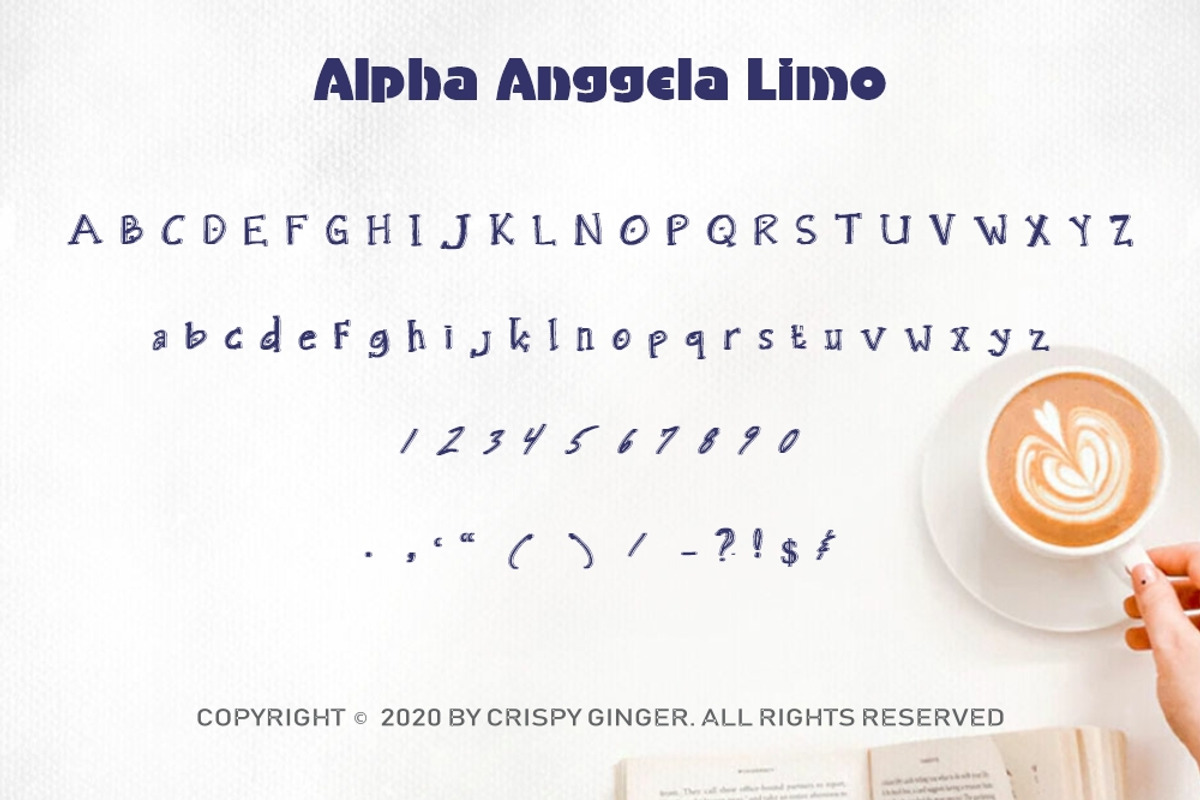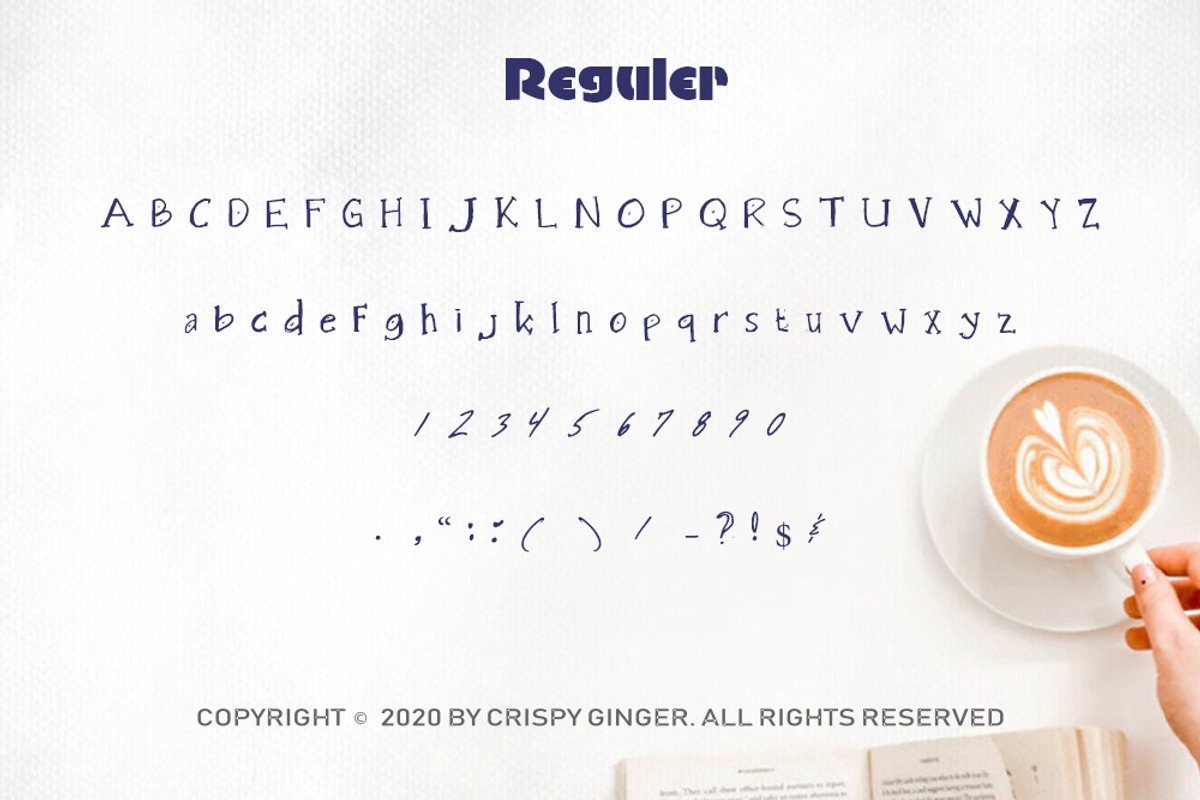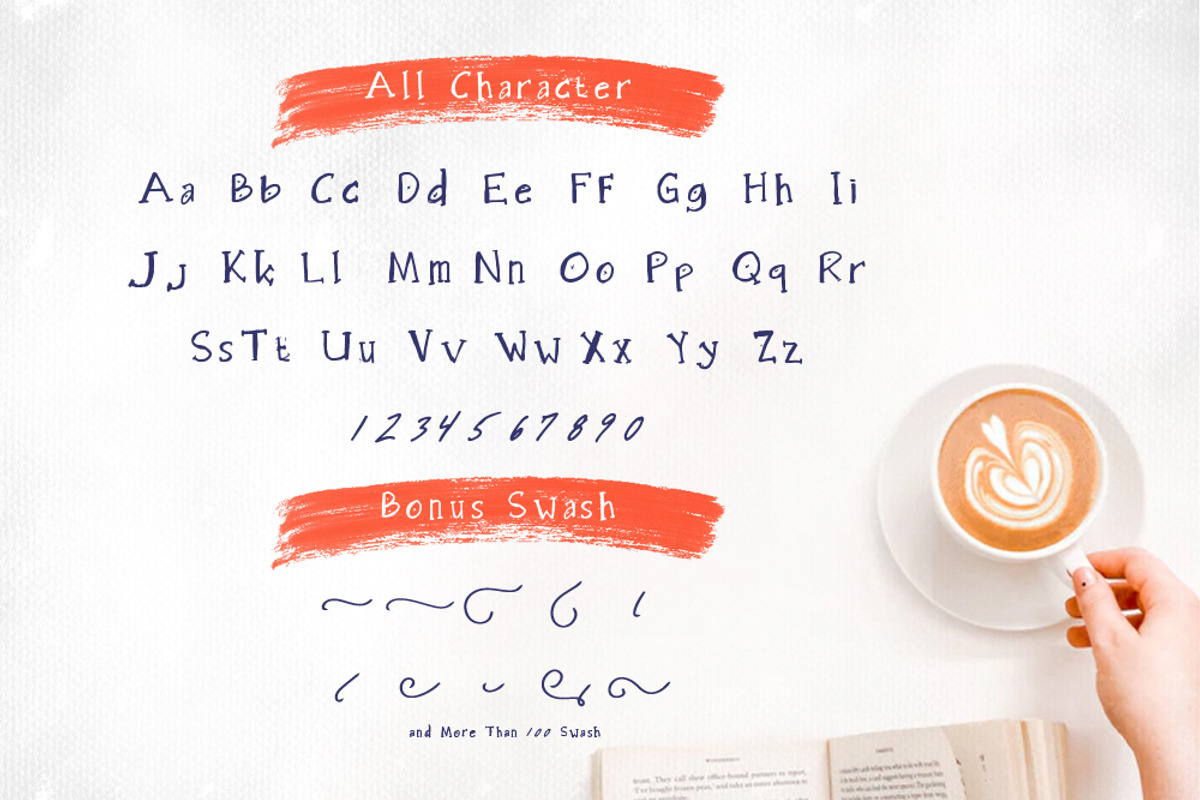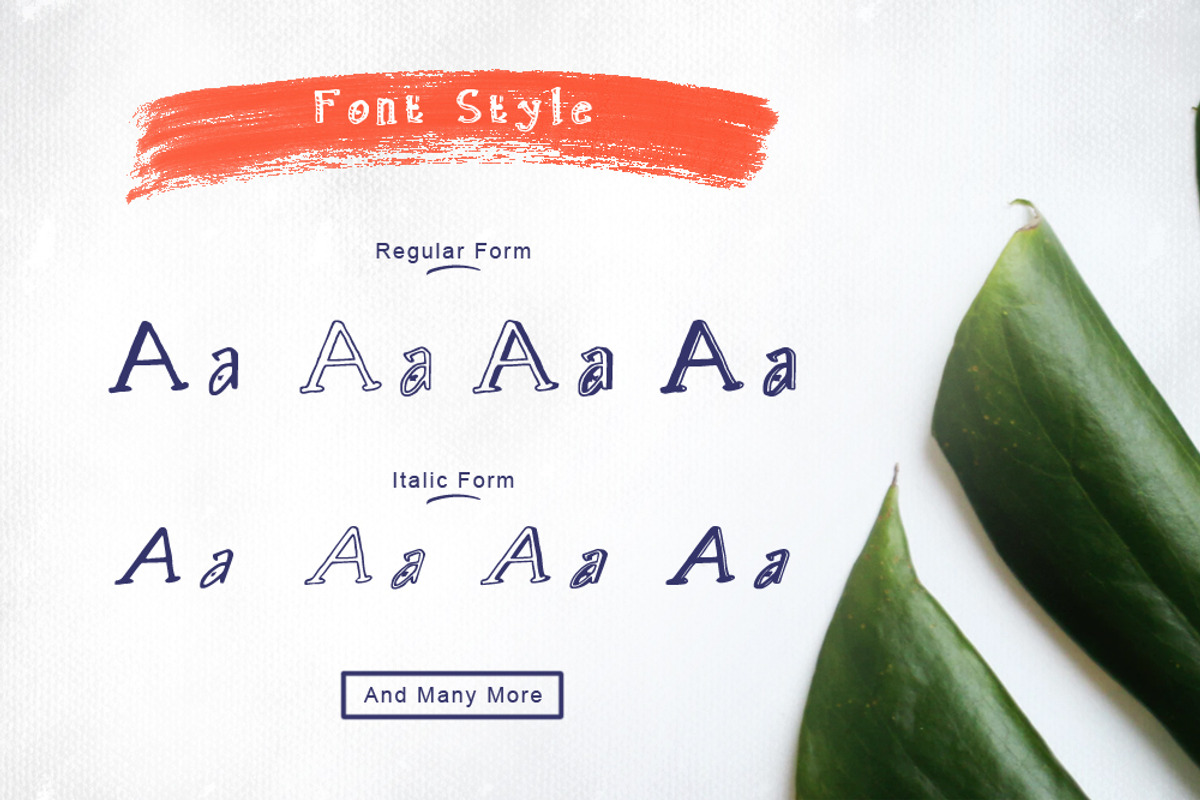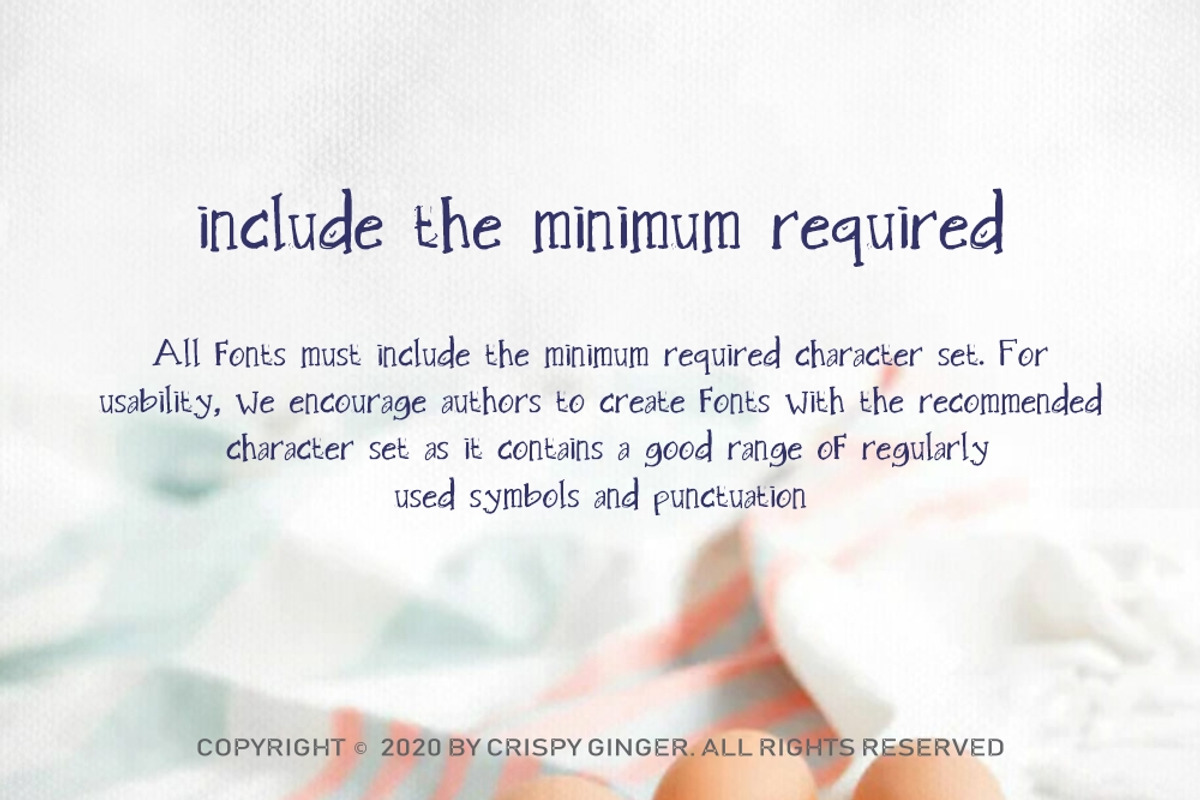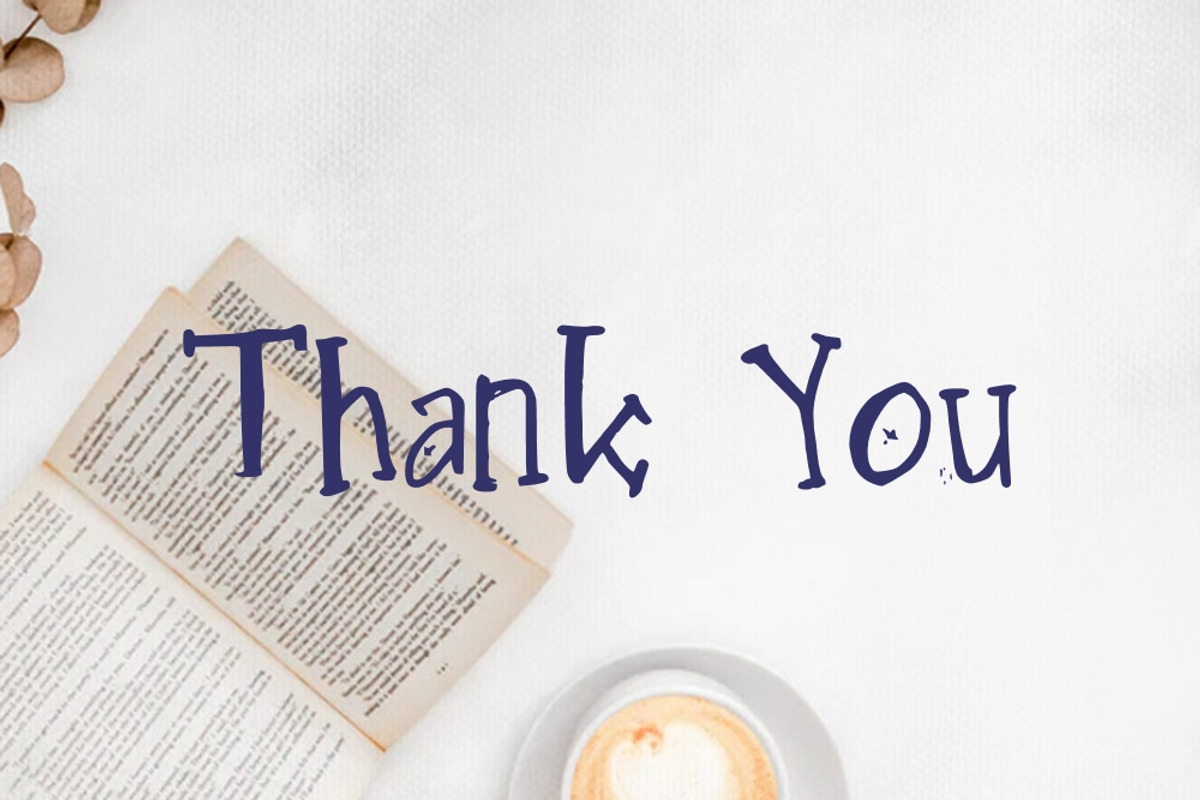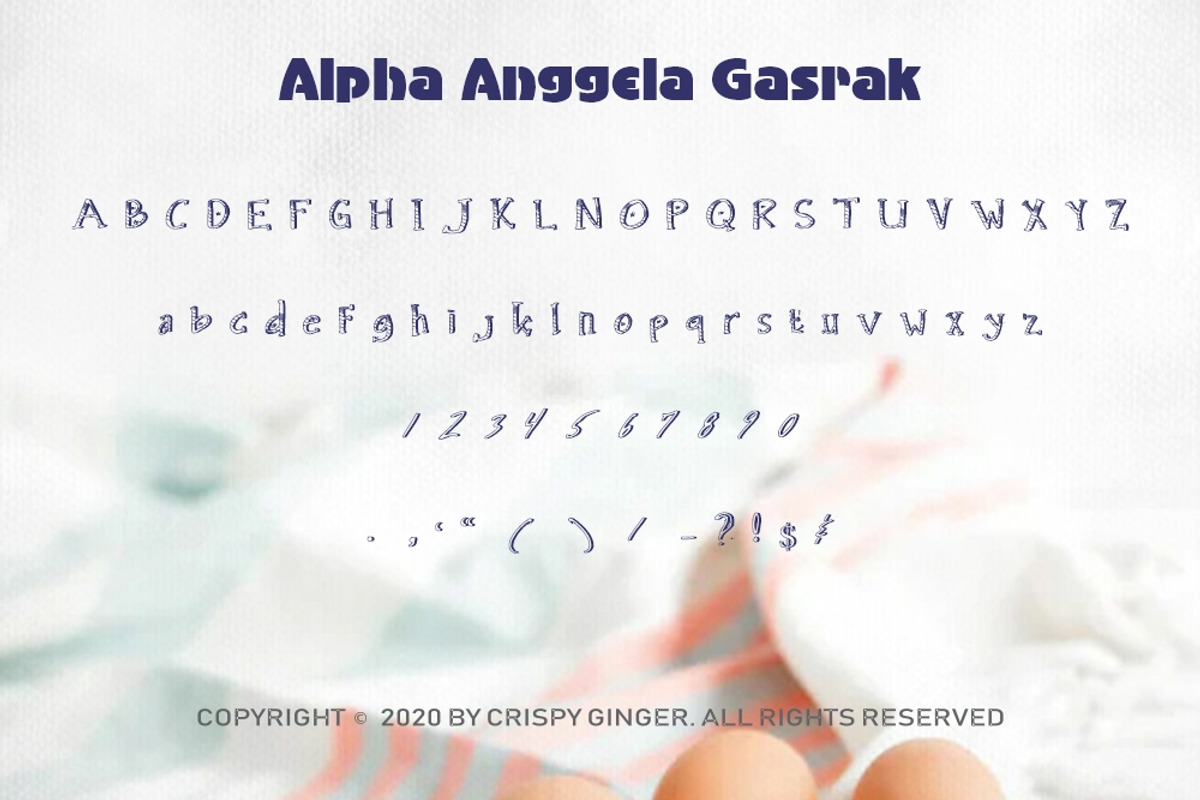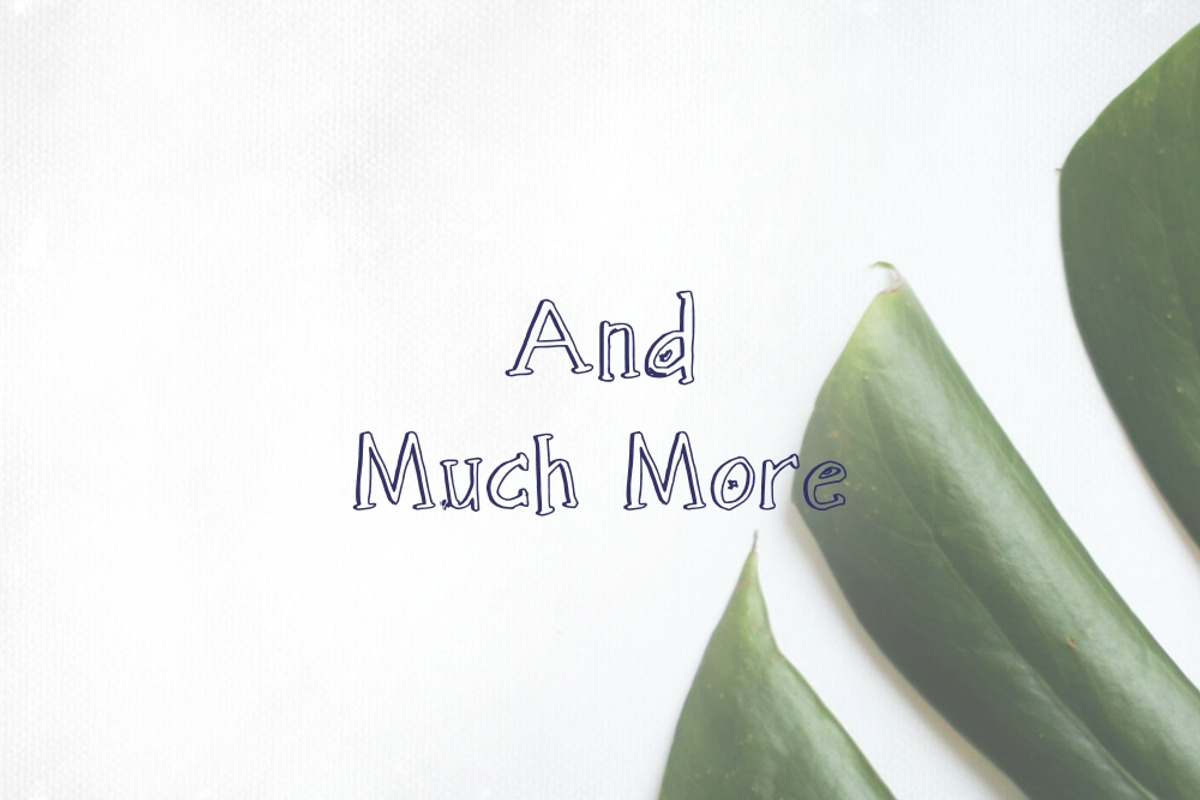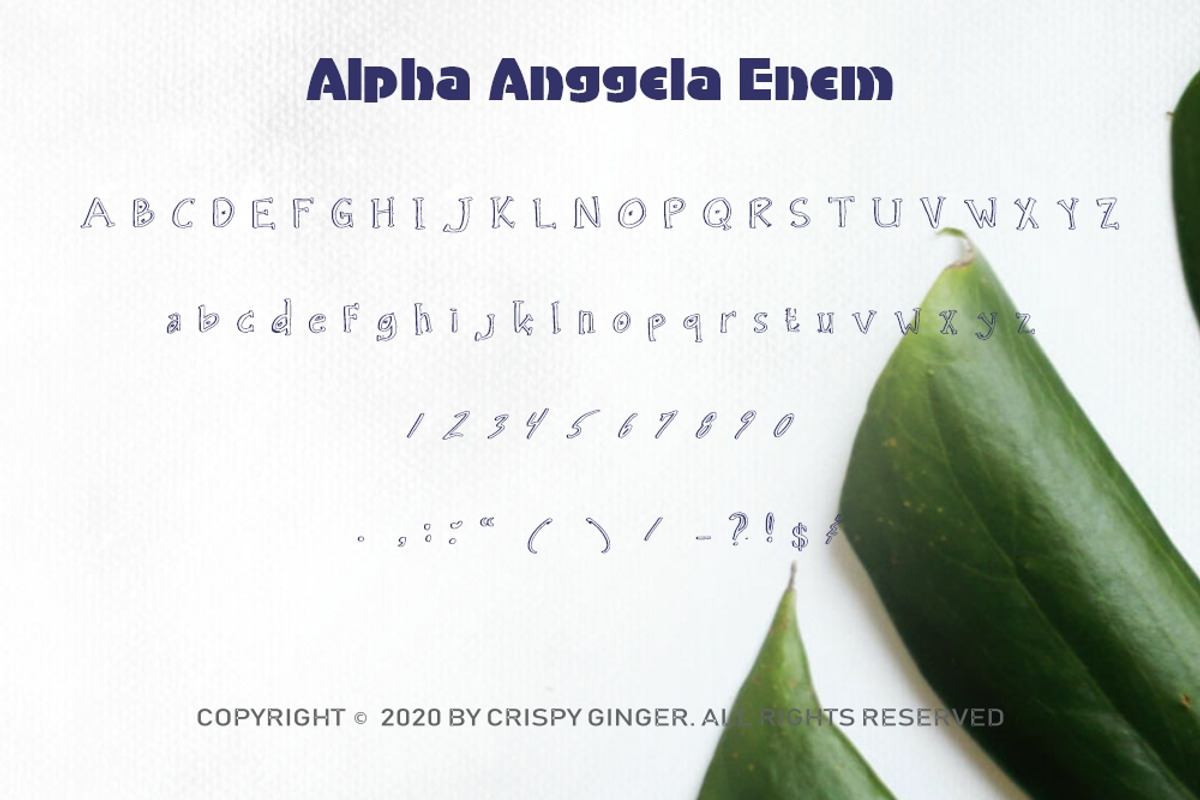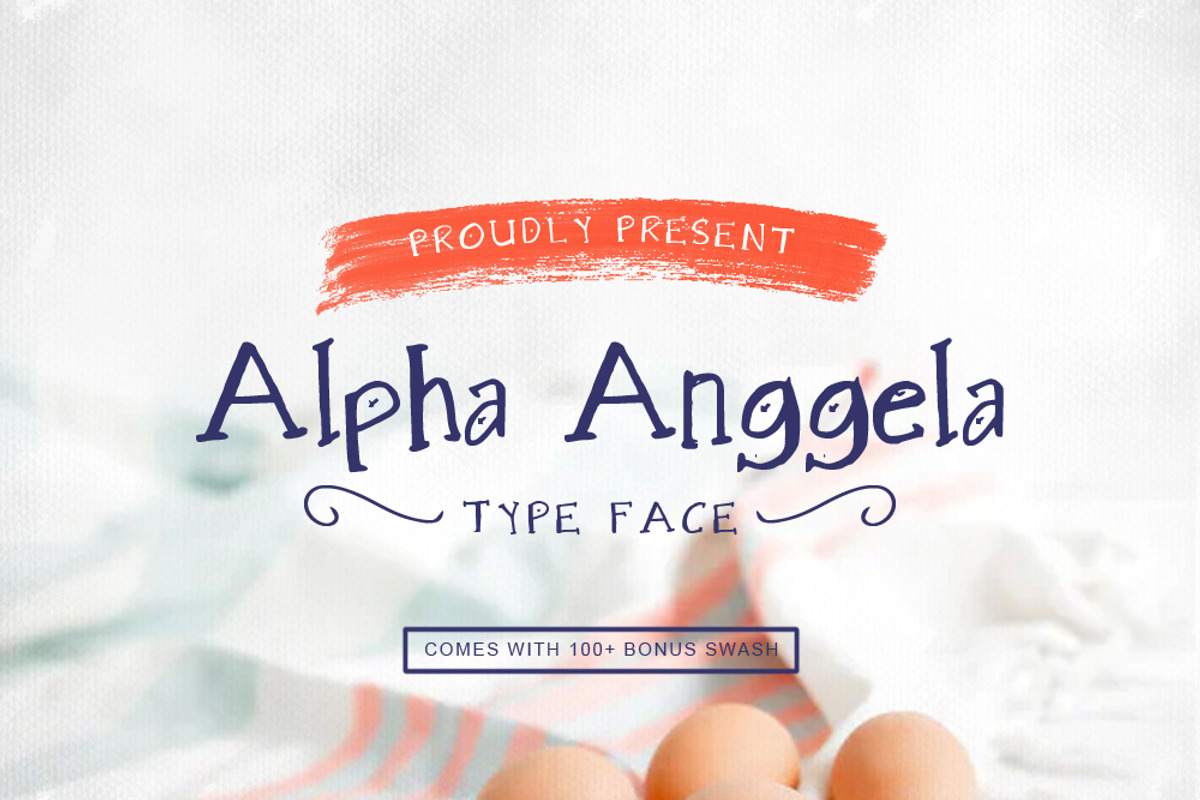
Alpha Anggela - 18 Font styles
Alpha Anggela - 18 Font styles and 150 Swashes
Alpha Anggela represents the best of organic curves with sharp modern edges. Sophisticated and edgy, it's everything you want out of a display font. It looks amazing at large sizes and, also, small sizes.
This Font is available in this ( letters – numbers – glyphs ) :
the total number is 18 font styles and 150+ swashes.
Looks great packaged on wrapping, bottles and jars or digitally on websites, social and apps or printed on newspapers, magazines and flyers.